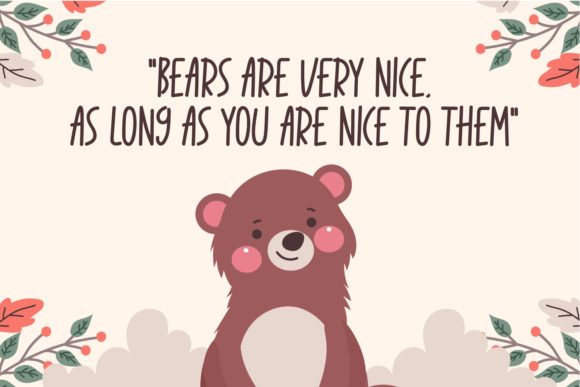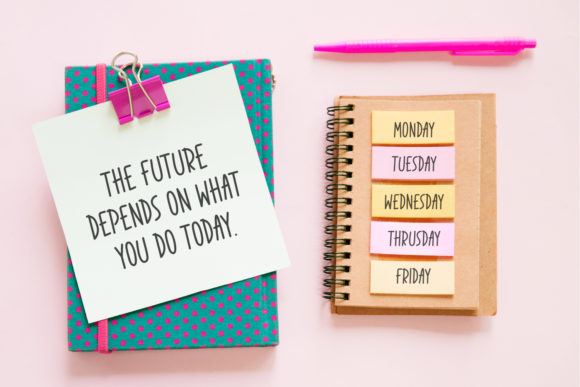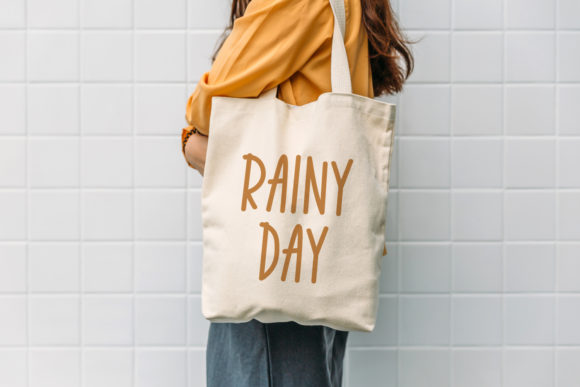
Introduction to Animal Day Font
Animal Day is a fun and cute display font that fits perfectly into anything.
Its casual charm makes it look very down to earth, easy to read and, in the end, very versatile Add this beautiful display font to your every creative idea.